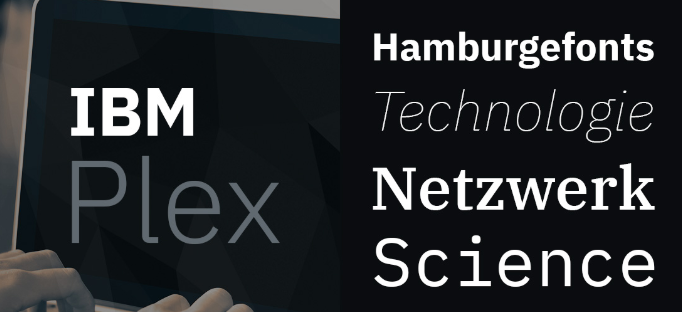
Say hello to IBM Plex Corporate, our fresh typeface font. It’s got a global vibe, bends like a gymnast, and screams IBM in a way that might just shock you.
It took years and quite a few work to get here, but nowadays we have a signature typeface we’re proud and excited to percentage with the world. The plex circle of relatives comes in a sans, serif, mono and sans condensed, all with roman and actual italics.